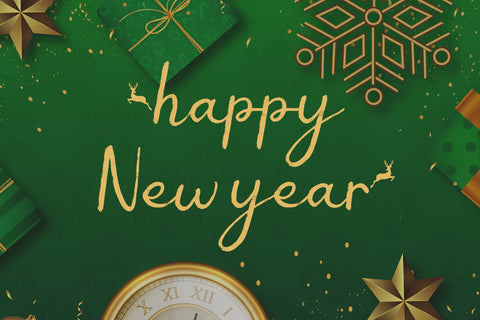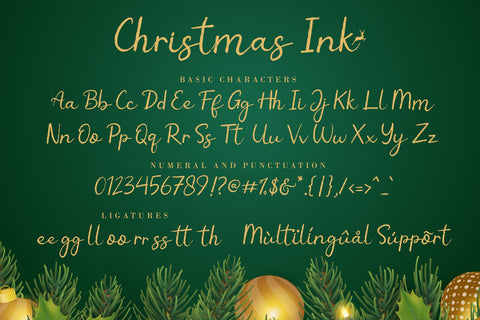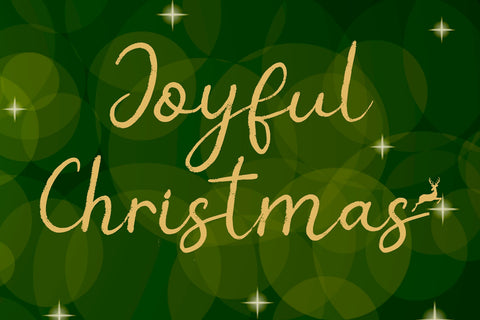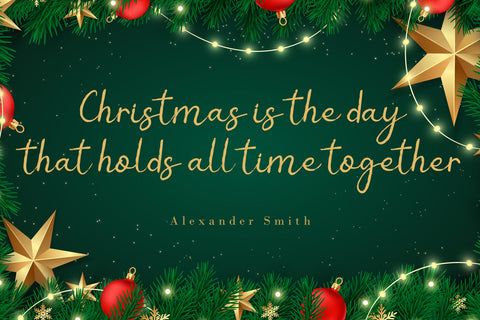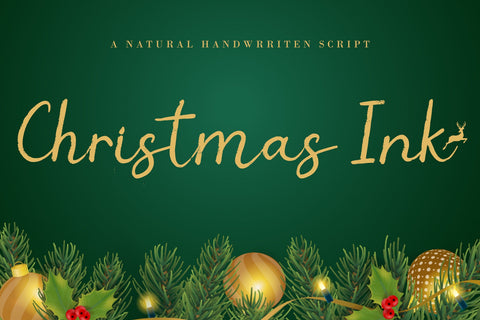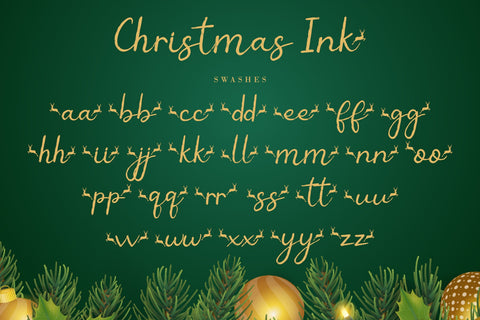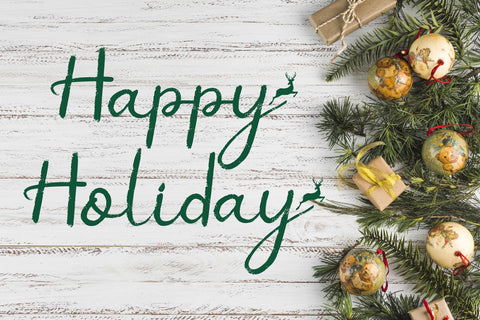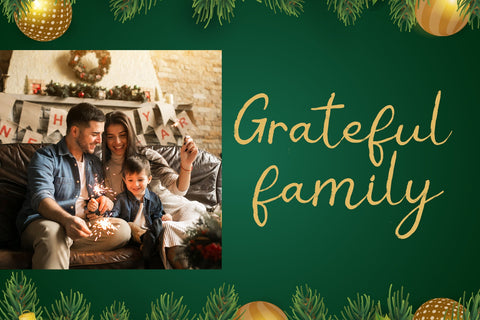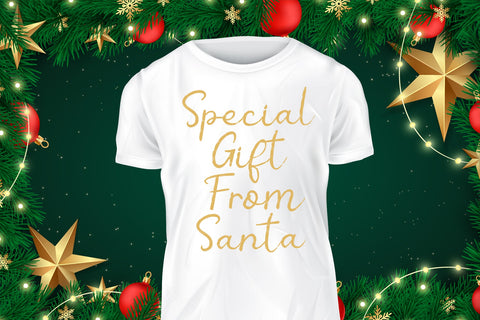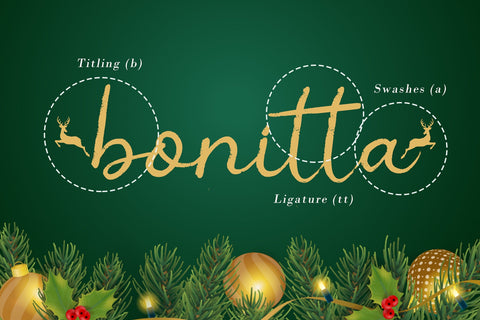
Christmas Ink
Christmas Ink is a lovely and wintery handwritten font. It is the best choice for creating eye catching logos, branding and quotes. This font is PUA encoded which means you can access all of the glyphs and swashes with ease!
Christmas Ink Features :
- (a-z) titling, (a-z) swashes, ligatures
- Support multilingual; ä ö ü Ä Ö Ü ß ¿ ¡